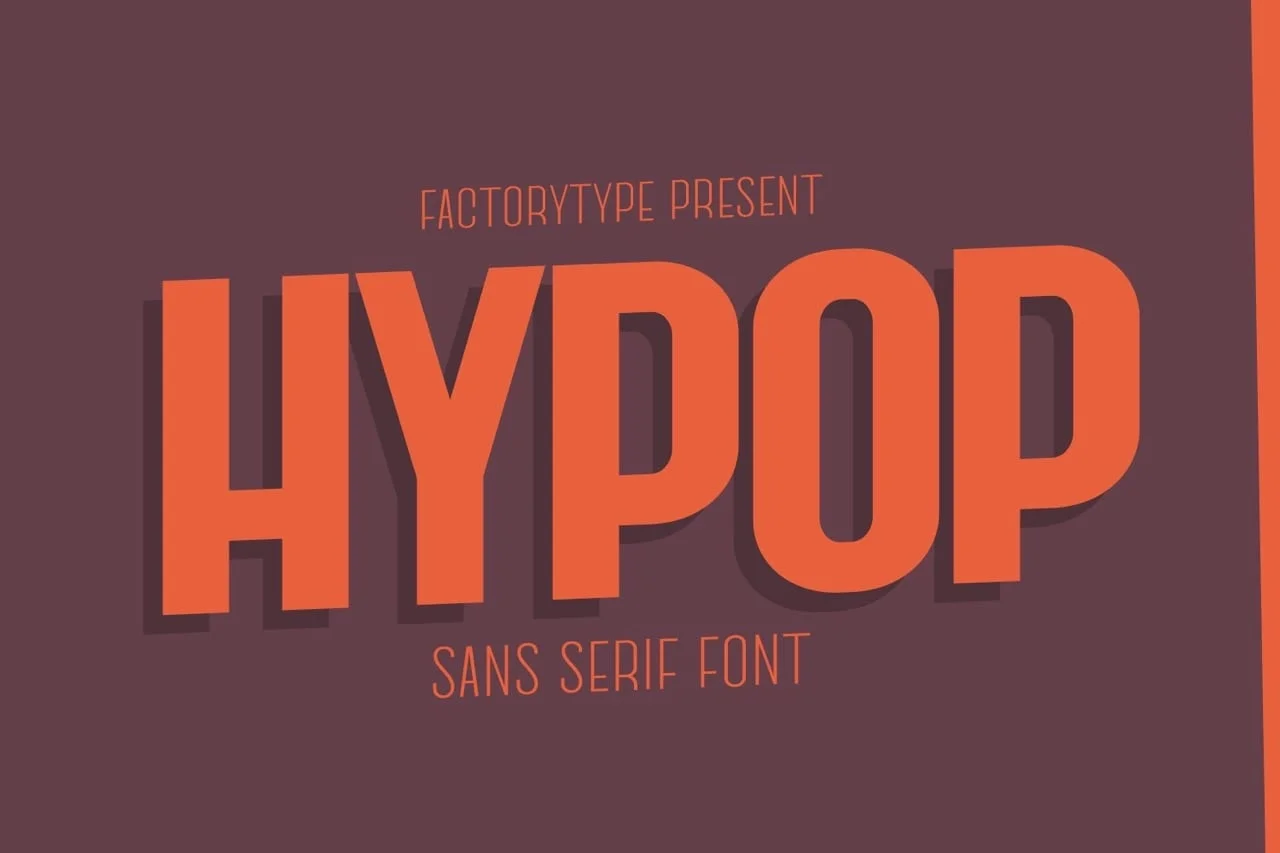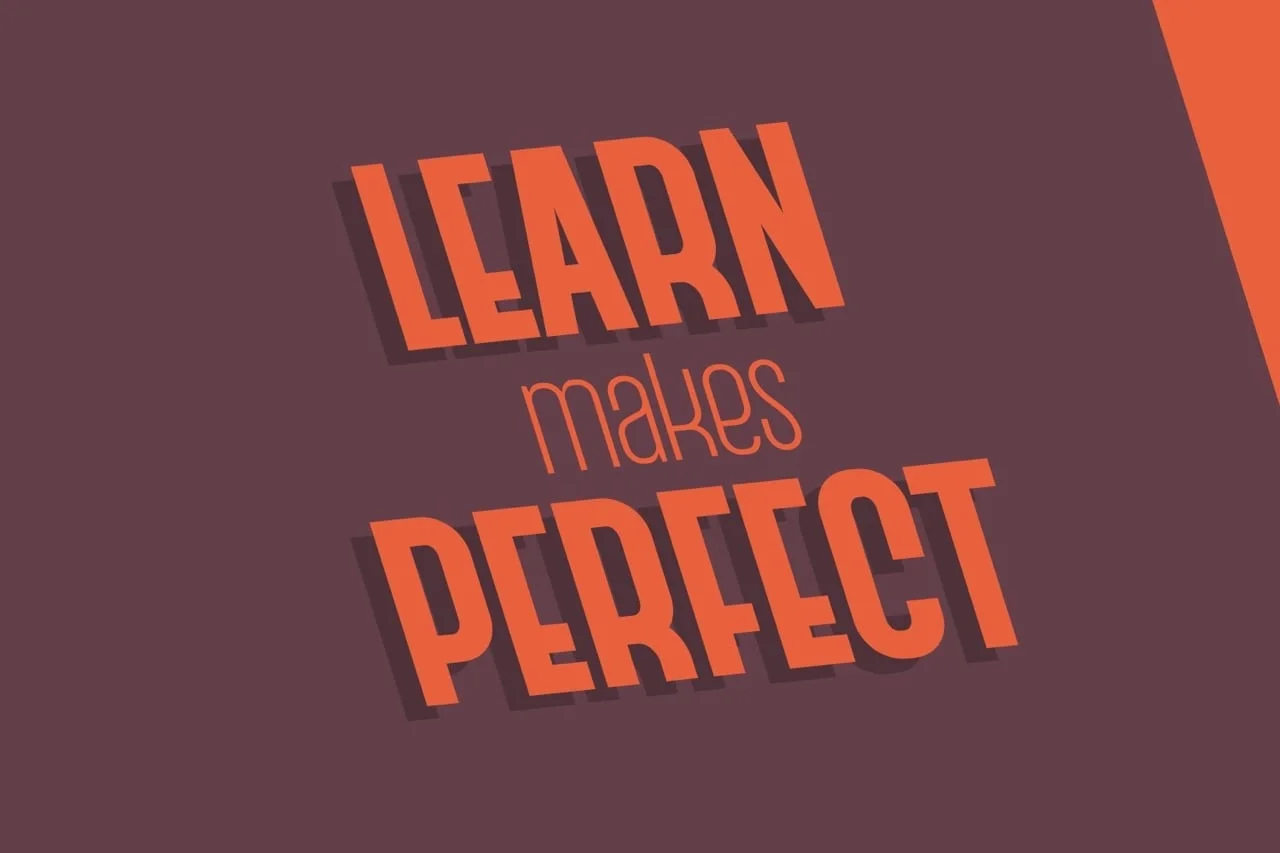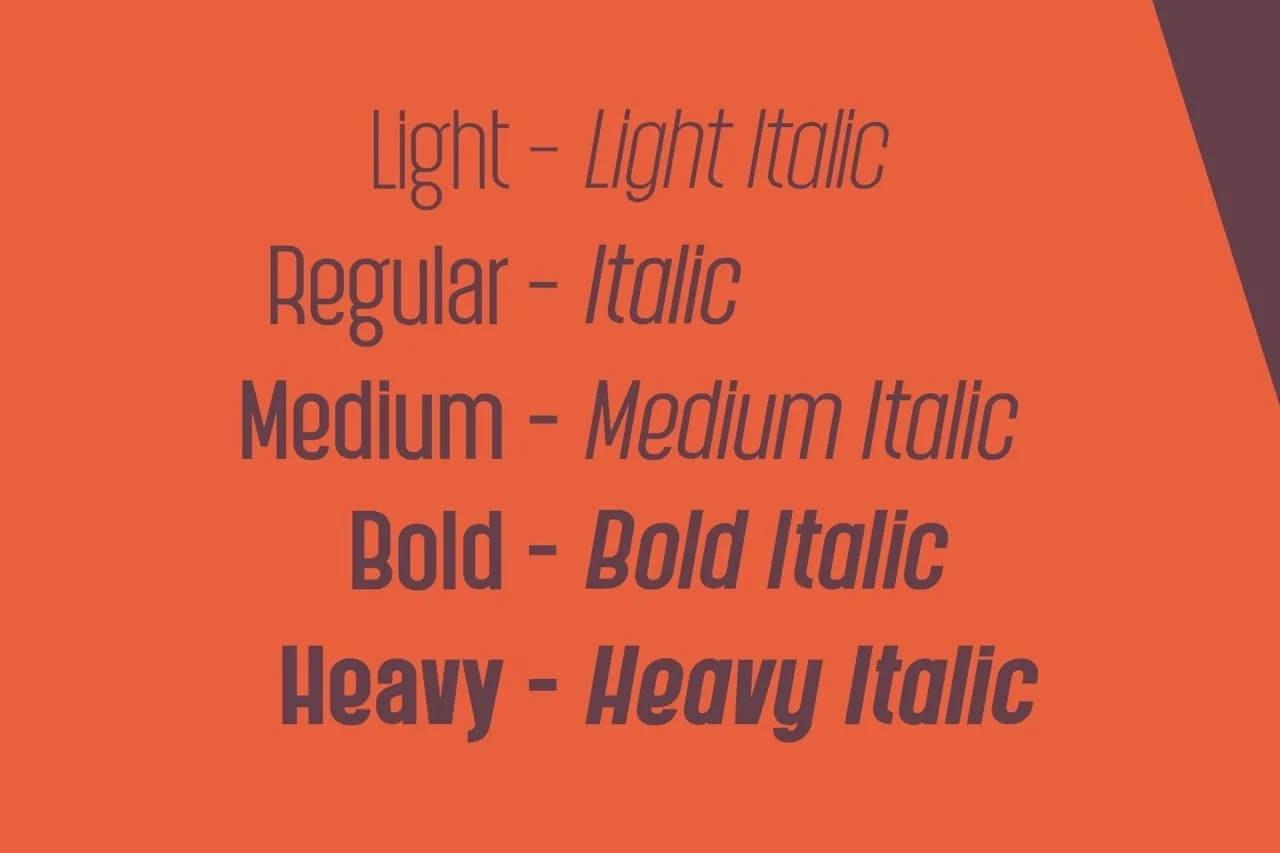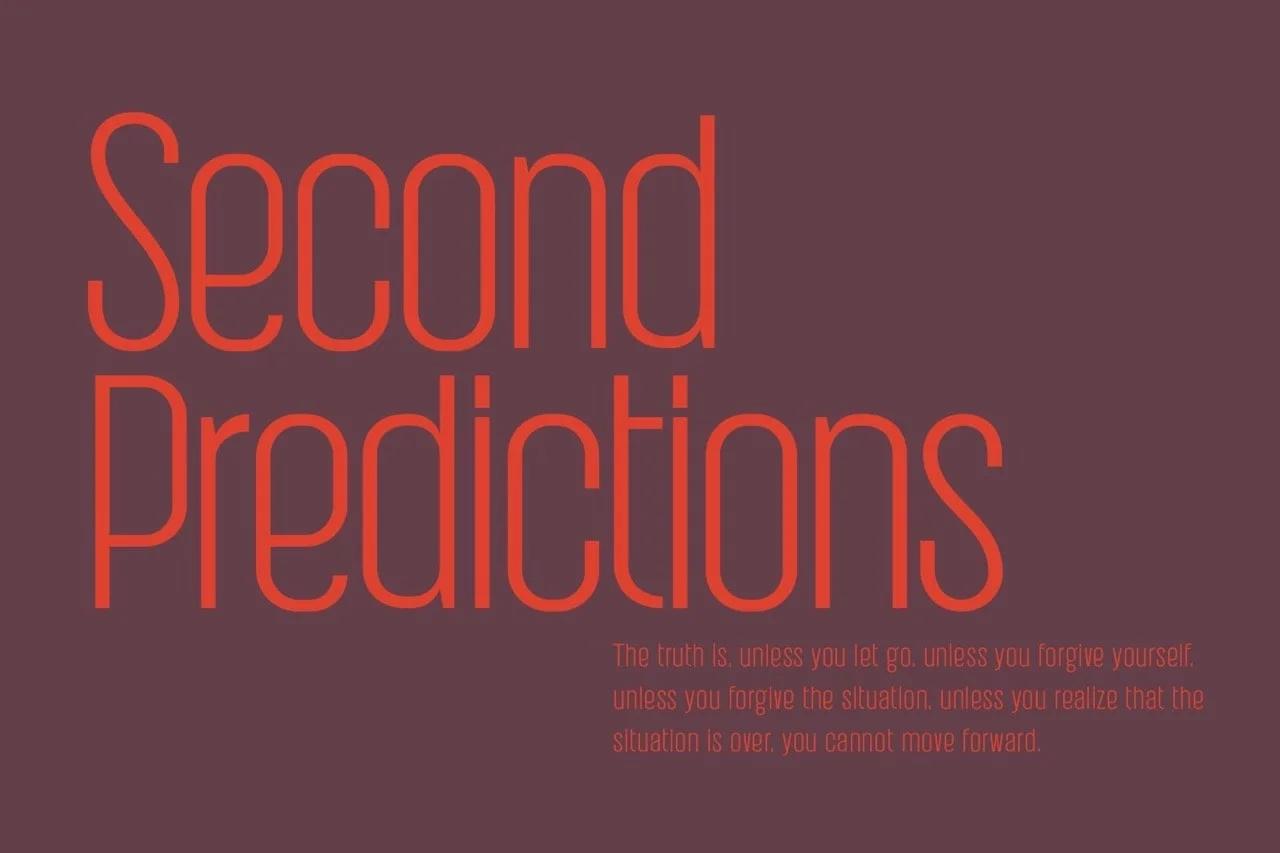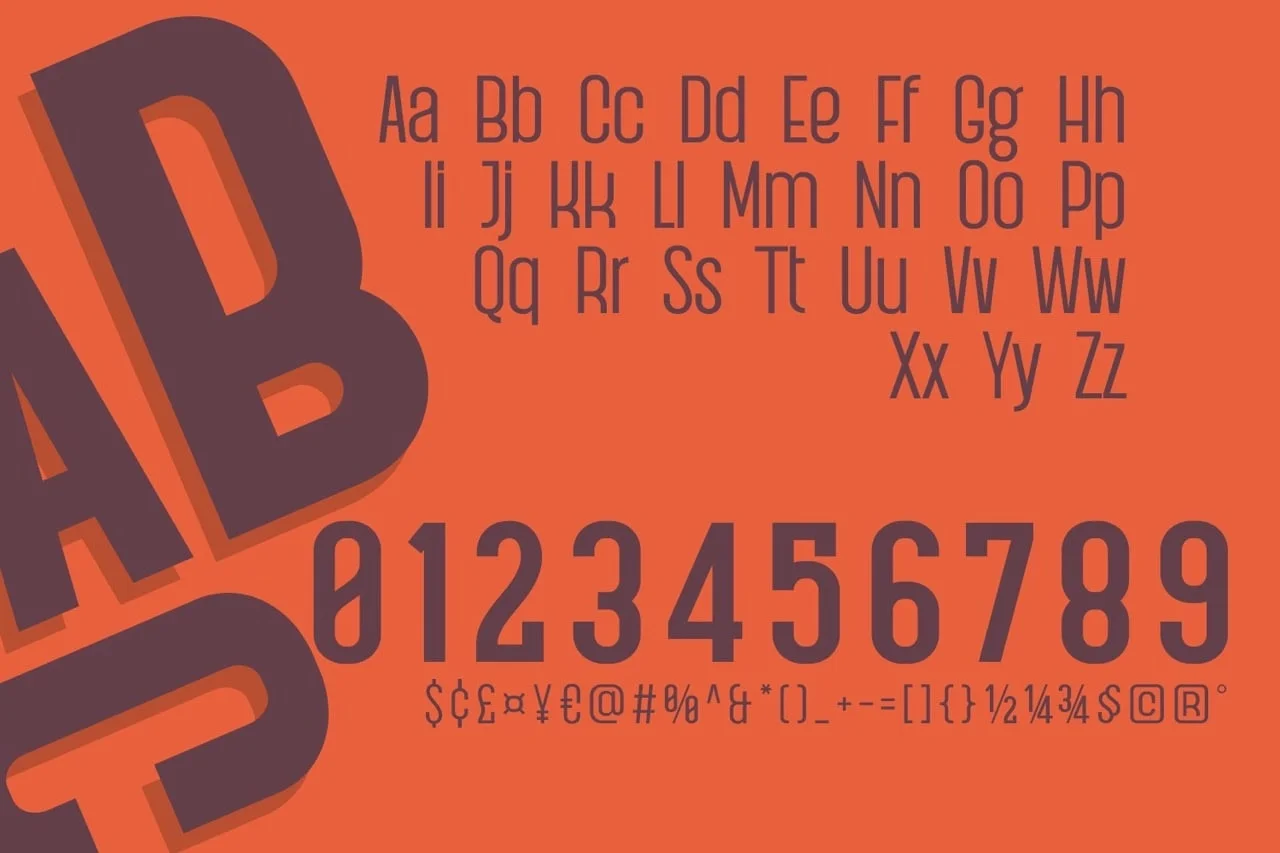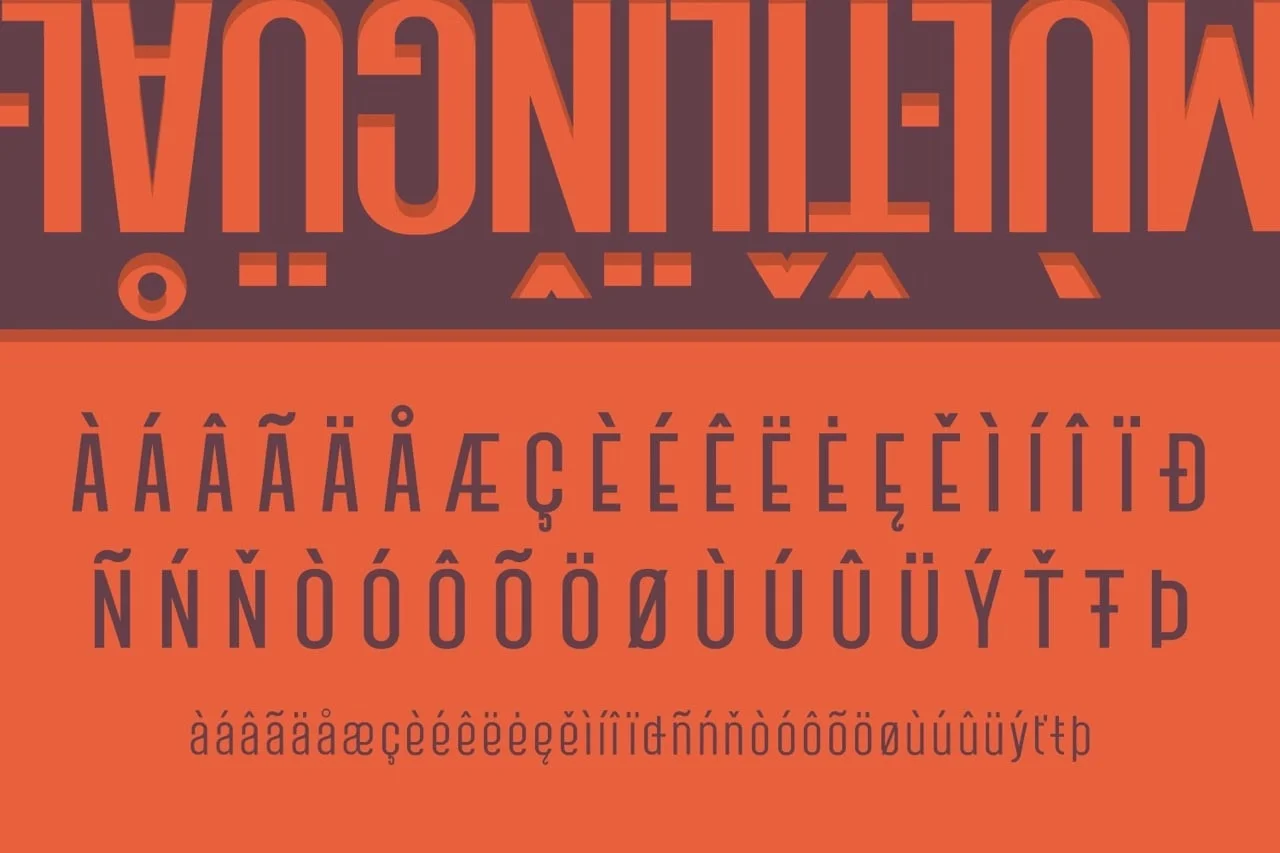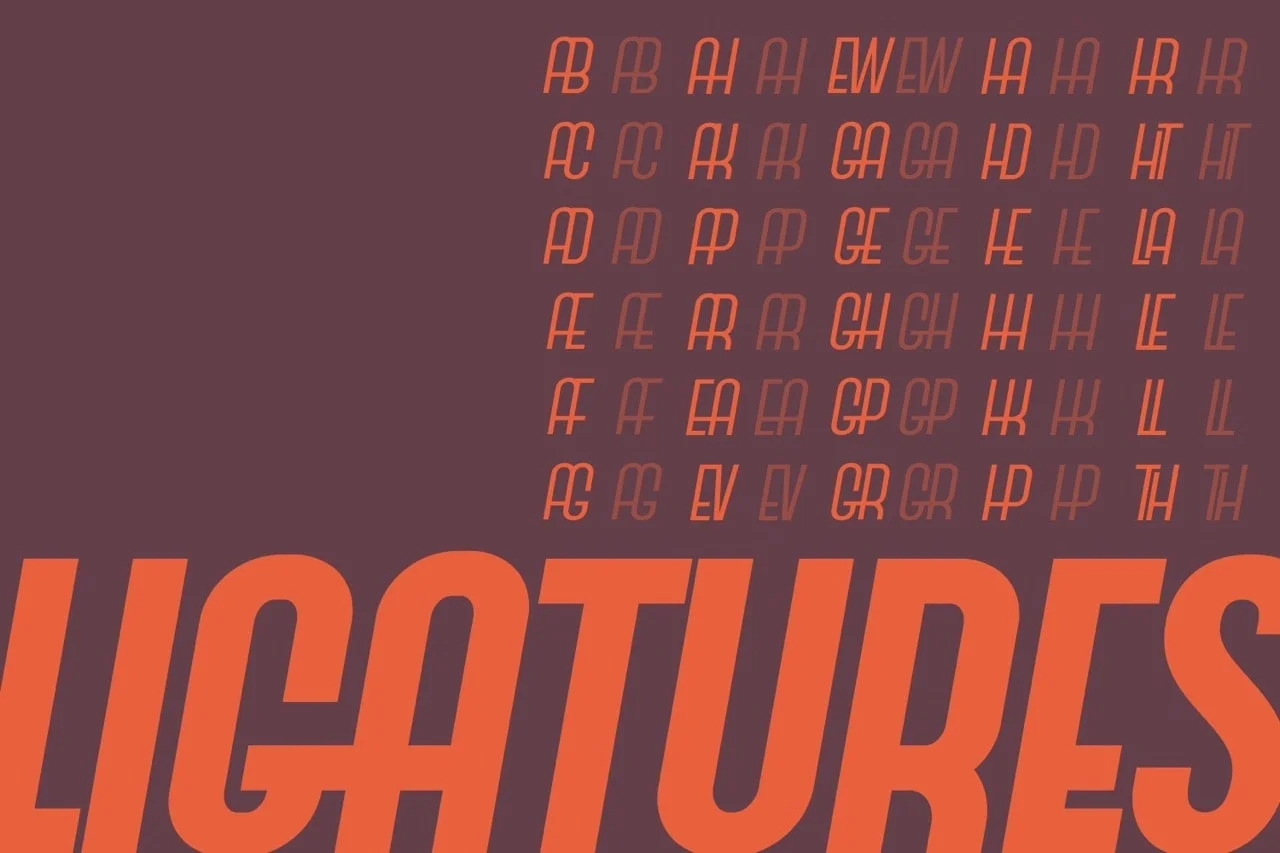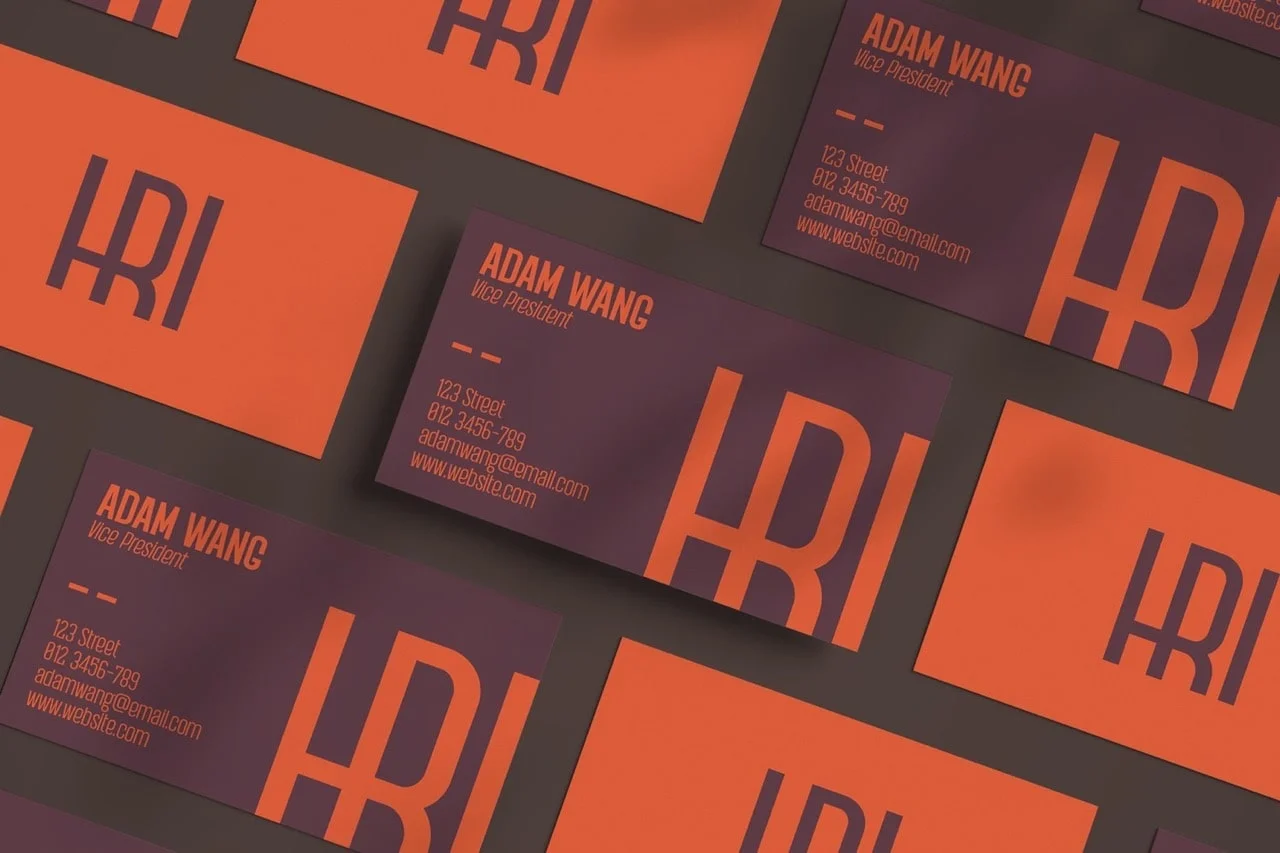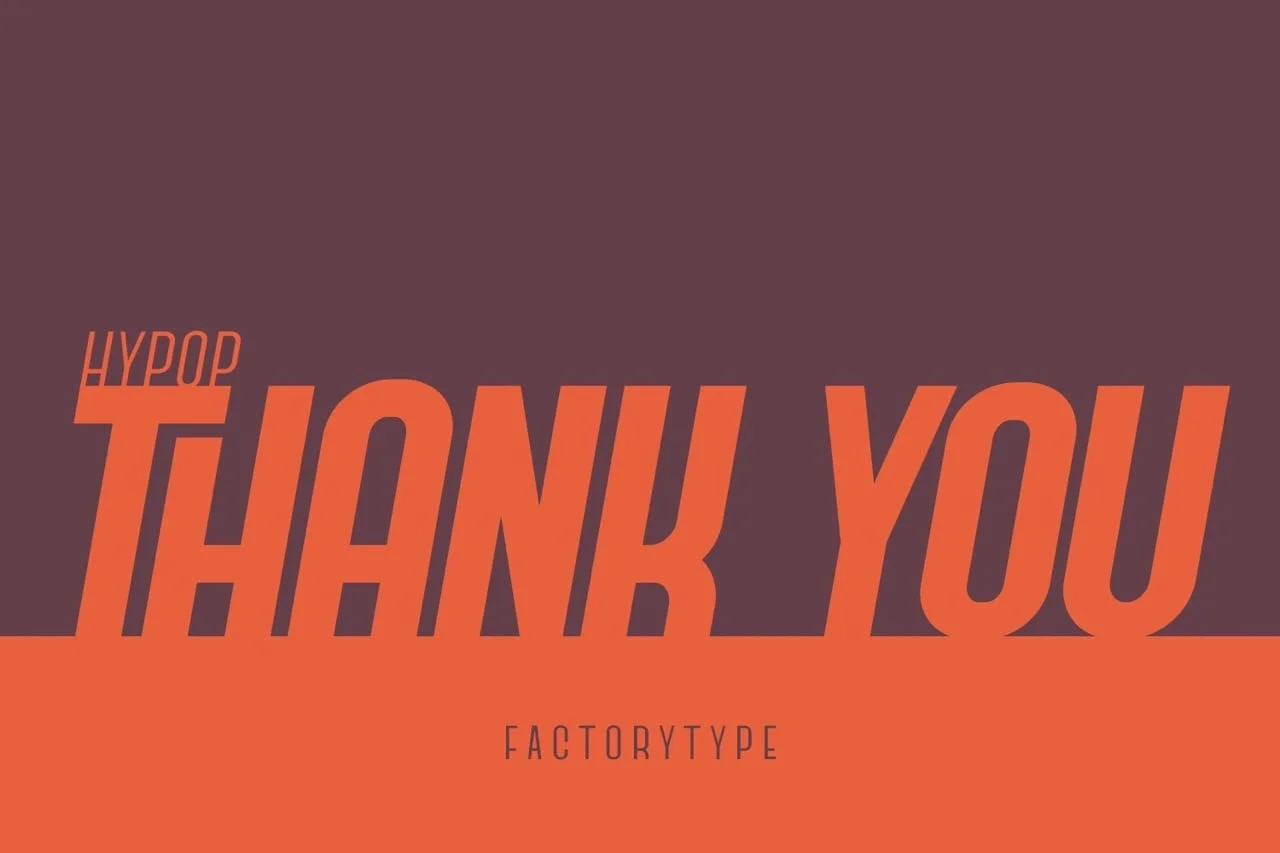
HYPOP is a bold and condensed sans serif font family with a nostalgic vibe. Combining retro and minimalist elements resulted in an elegant design. The different weights give you a lot of options when it comes to choosing the right typographic color for your project.
- 5 Weights
- 2 Styles (Regular and Italic)
- Basic Latin A-Z and a-z
- Numerals & Punctuation
- Stylistic Ligatures and Alternate Glyphs
- Multilingual Support for ä ö ü Ä Ö Ü …
Hypop Condensed Sans